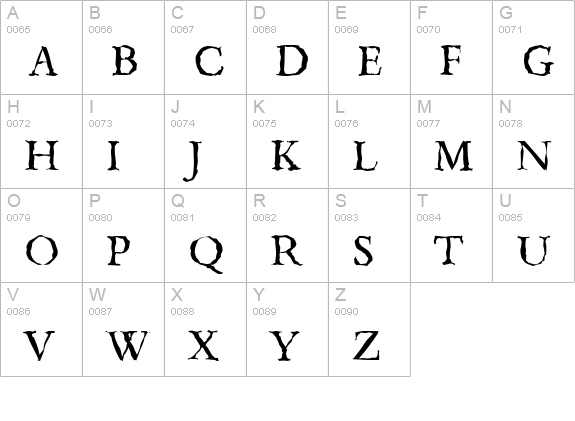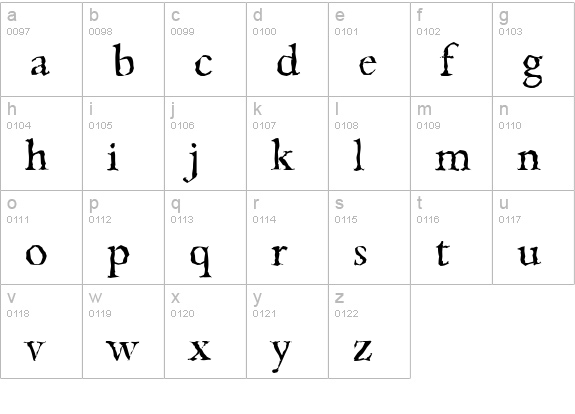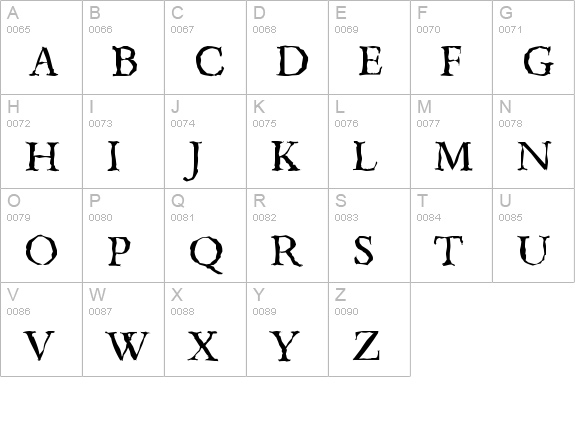
BambergRandom-Regular is the standard, neutral variant in the BambergRandom typeface family \xE2\x80\x94 well suited to general body text, paragraphs, and standard typographic work.
BambergRandom-Regular is a charming and versatile font that adds a touch of whimsy to any design project. With its hand-drawn style and playful curves, this font exudes creativity and personality. Whether you're working on a poster, logo, or website, BambergRandom-Regular is sure to make your text stand out. The best part? BambergRandom-Regular is completely free to download at FontsMarket.com. That's right, you can elevate your designs with this eye-catching font without spending a dime. So why wait? Download BambergRandom-Regular today and let your creativity shine!